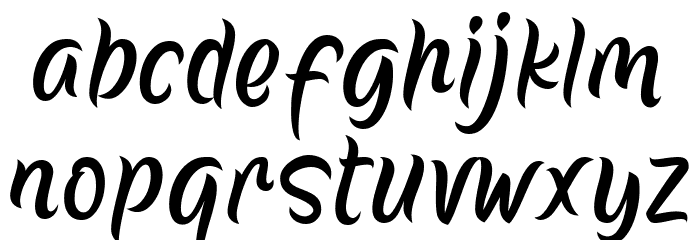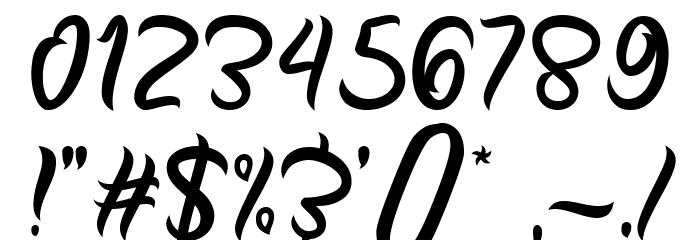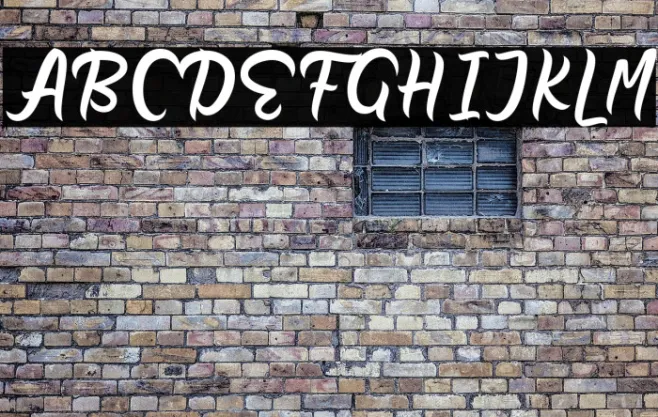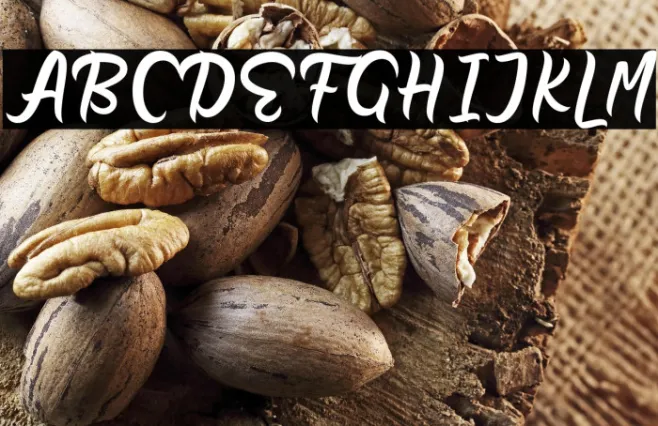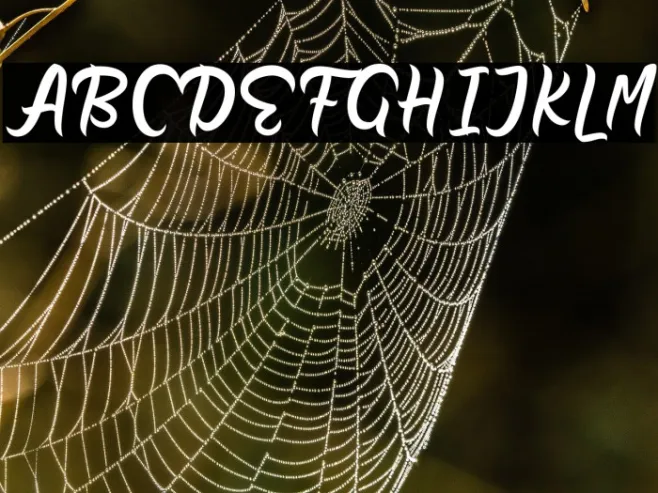
Rachelia Font
This font exudes a lively and dynamic character with its bold, flowing script style. The letters are crafted with a smooth, continuous stroke that mimics the fluidity of handwriting, giving it a personal and approachable feel. The uppercase letters maintain a consistent height, while the lowercase letters exhibit a playful bounce, adding to the font's energetic personality. The numerals and special characters are designed to match the overall aesthetic, ensuring a cohesive look across all text. This font is perfect for projects that require a touch of elegance combined with a casual flair.
A bold, flowing script font with a lively, handwritten style.
- Proposed Projects: Ideal for invitations, greeting cards, branding, and social media graphics.
- Category: Script
- Use Case: Logos, Headlines, Invitations